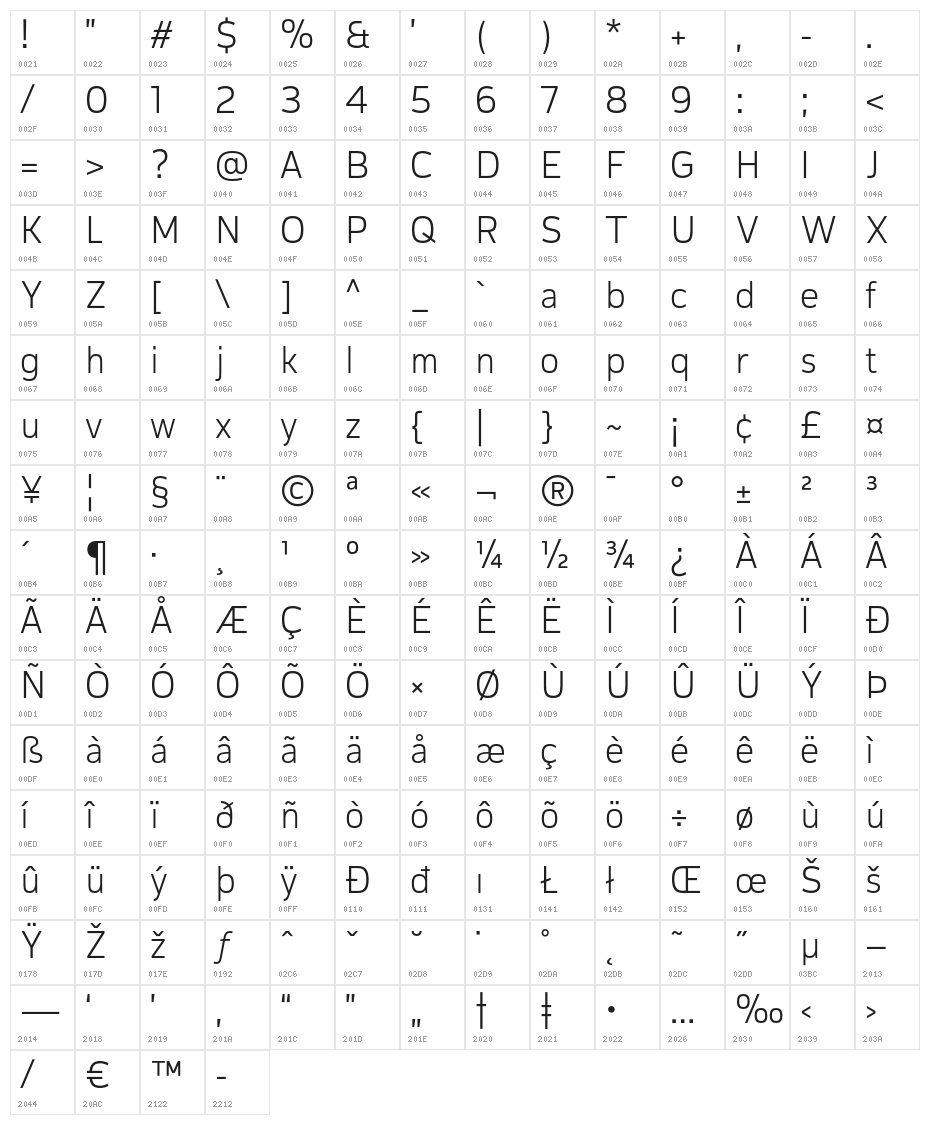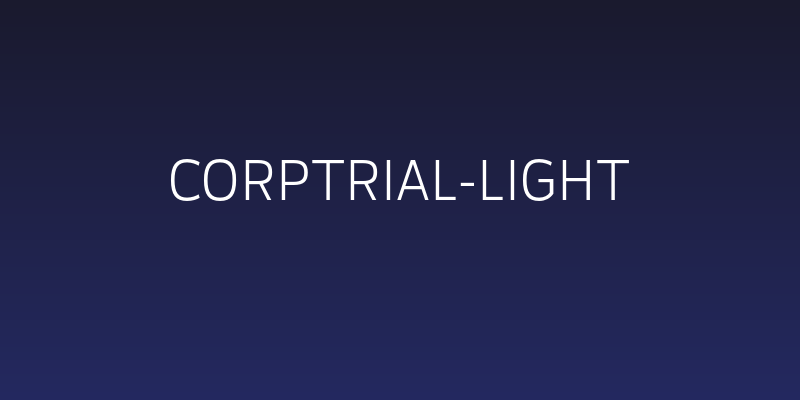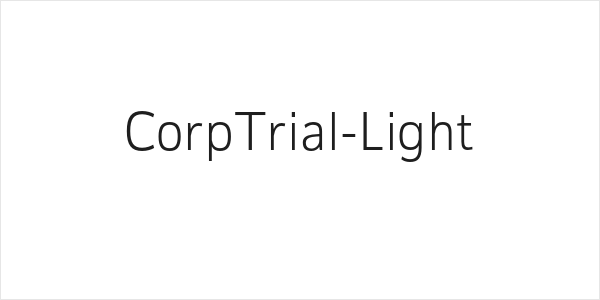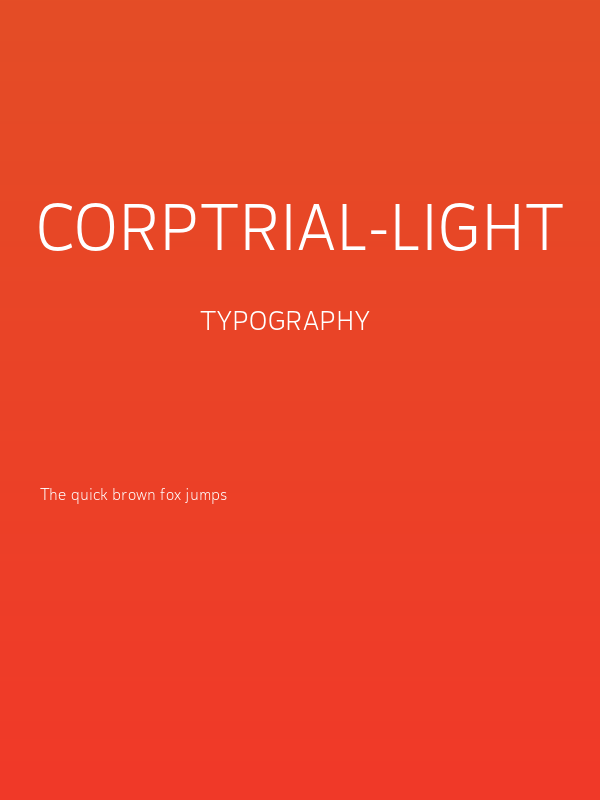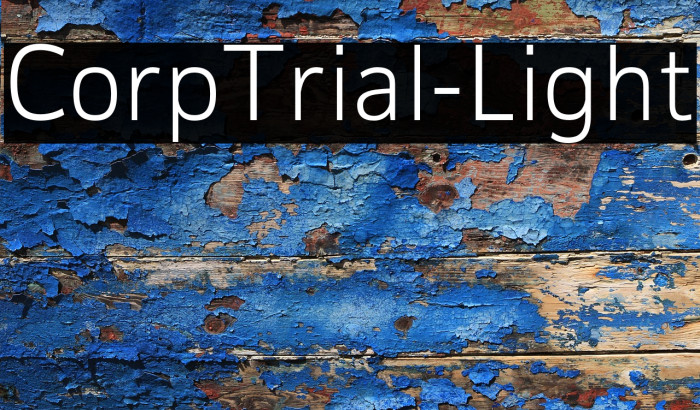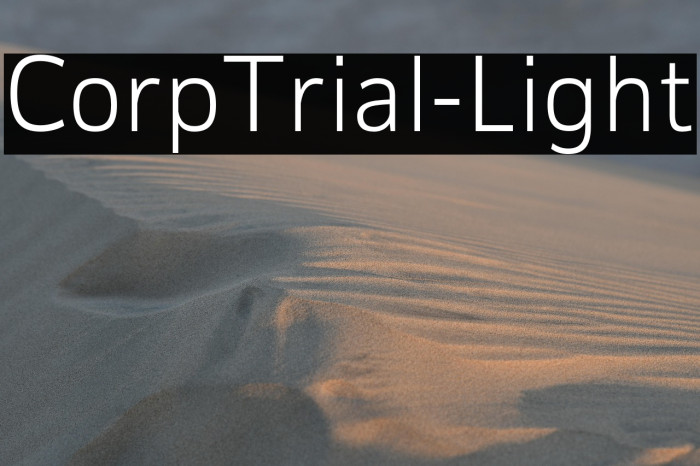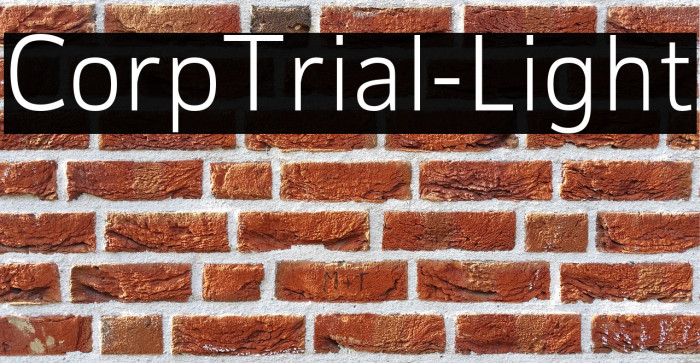
CorpTrial-Light Font
CorpTrial-Light Description
This font features a clean and modern sans-serif design with a light weight, making it highly legible and suitable for a variety of applications. The characters are evenly spaced with a normal width, providing a balanced and harmonious appearance. The font's simplicity and clarity make it ideal for both digital and print media. It includes a full set of uppercase and lowercase letters, numbers, and a range of special characters, ensuring versatility in use. The stroke contrast is low, contributing to its sleek and contemporary look.
| Proposed Projects | Ideal for corporate branding, websites, mobile apps, and editorial design. |